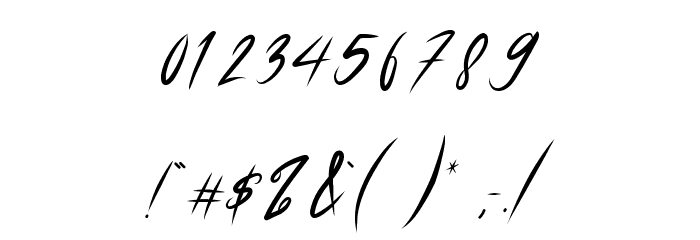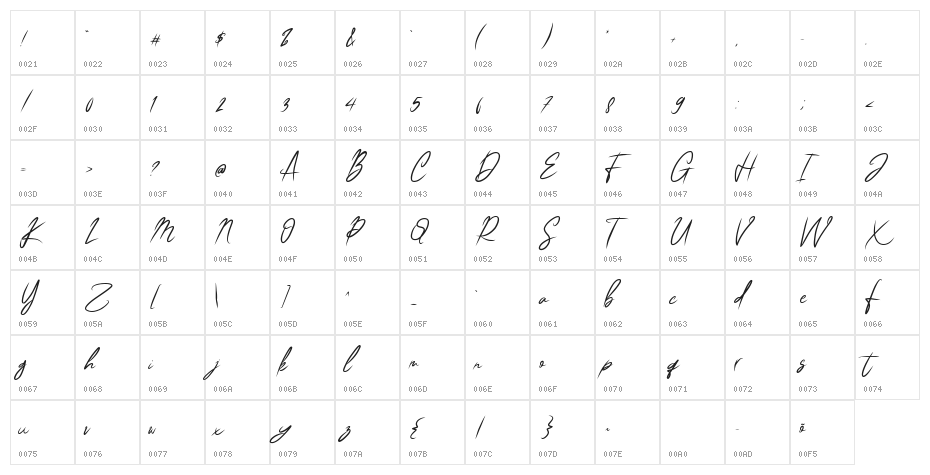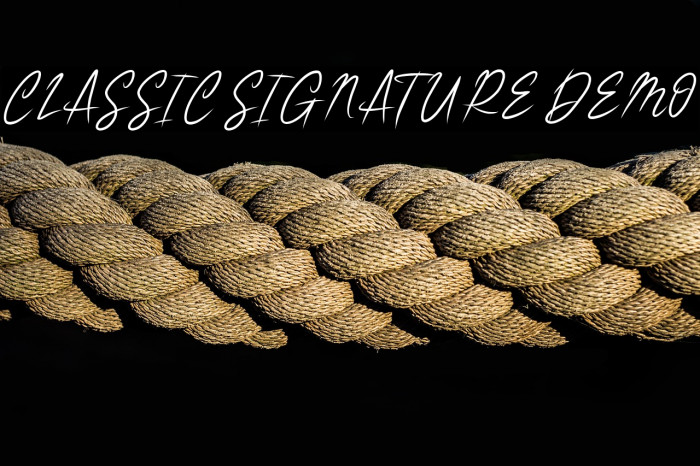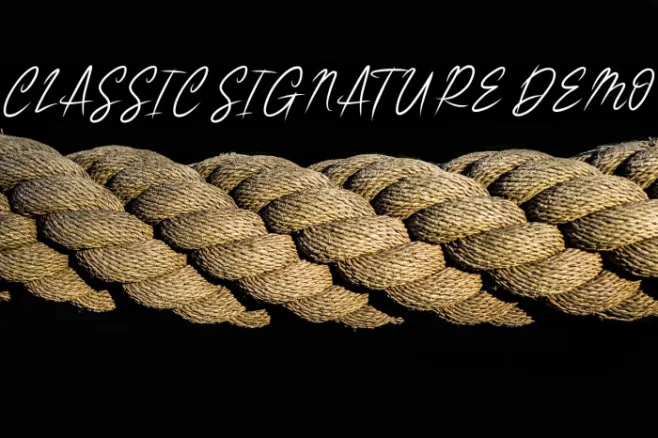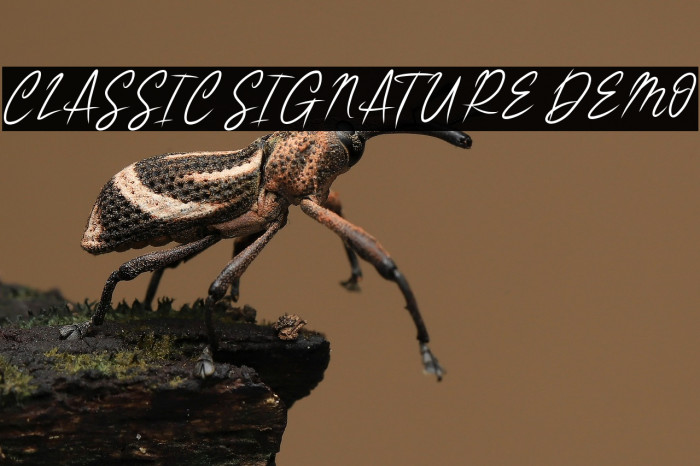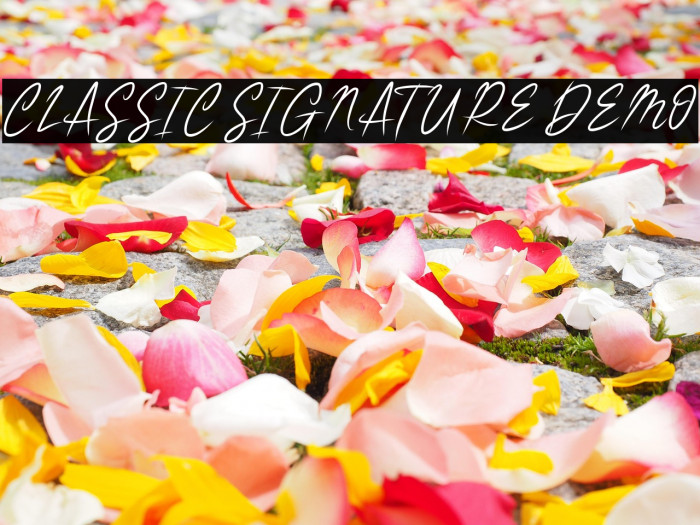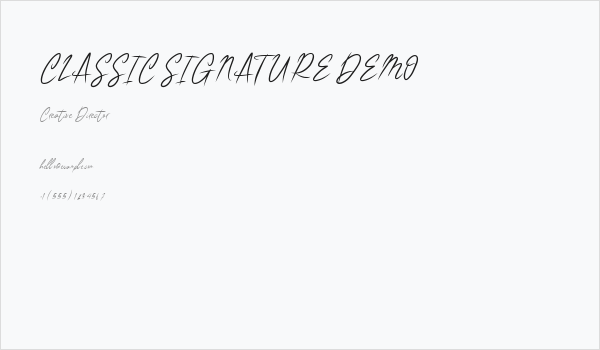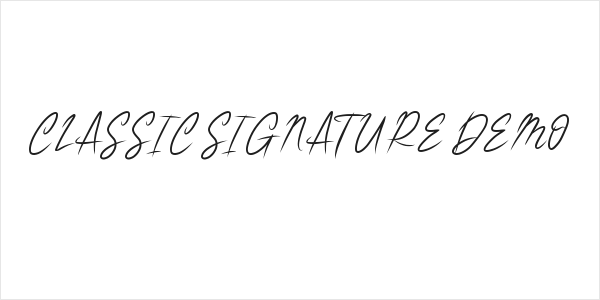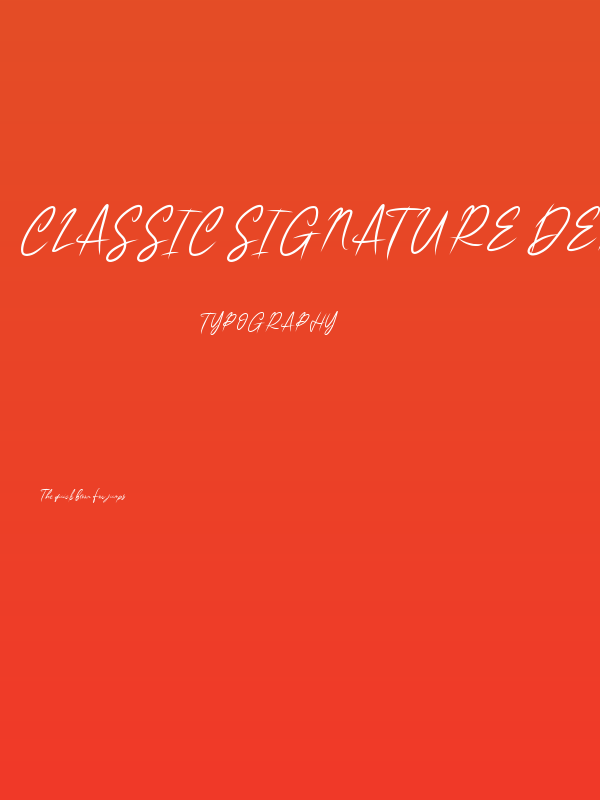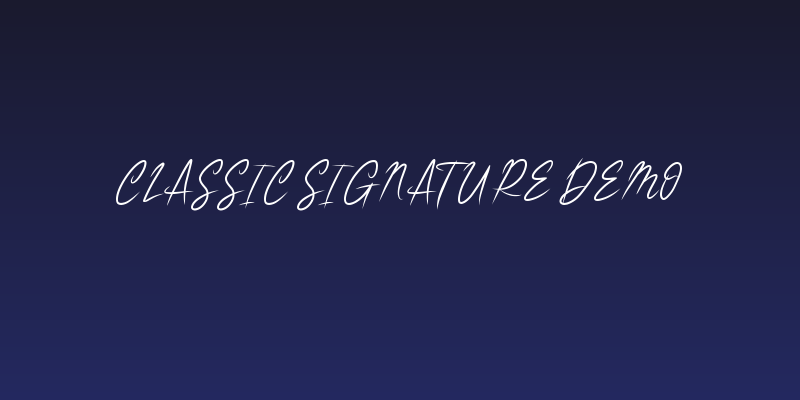
CLASSIC SIGNATURE DEMO Font
CLASSIC SIGNATURE DEMO Description
This elegant and flowing script font exudes a sense of sophistication and style, reminiscent of classic handwritten signatures. The letters are gracefully connected, with smooth curves and a slight slant that adds to its dynamic appearance. The uppercase letters are bold and prominent, while the lowercase letters maintain a delicate balance, offering a harmonious blend. The numerals and special characters are crafted with the same attention to detail, ensuring consistency throughout. This font is perfect for projects that require a touch of elegance and personal flair.
| Proposed Projects | Ideal for wedding invitations, luxury branding, personal signatures, and elegant stationery. |